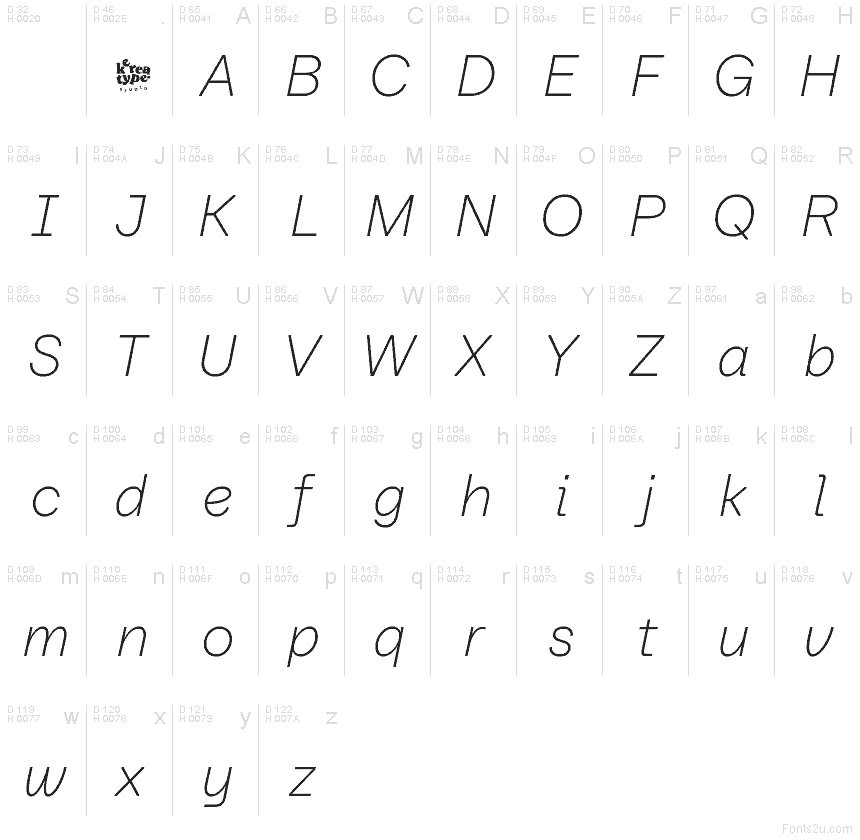
Baru Sans Demo Thin Italic
Baru Sans Thin Italic font by Kereatype Studio is a free sans serif typeface. Part of the Baru Sans family, it solves a quiet but common challenge: adding emphasis without bulk. Its featherweight strokes, soft curves, and subtle forward lean read like a whisper—elegant, modern, and remarkably legible at small sizes, where bolder italics feel heavy.
Using Baru Sans Thin Italic, you can give captions, lookbooks, tech UI labels, product details, menu notes, and fashion branding a clean, effortless sheen. The spacing feels airy, so lines breathe and hierarchy stays clear. This free font pairs naturally with Baru Sans Regular for body copy; set Thin Italic a notch larger to keep that silky clarity.